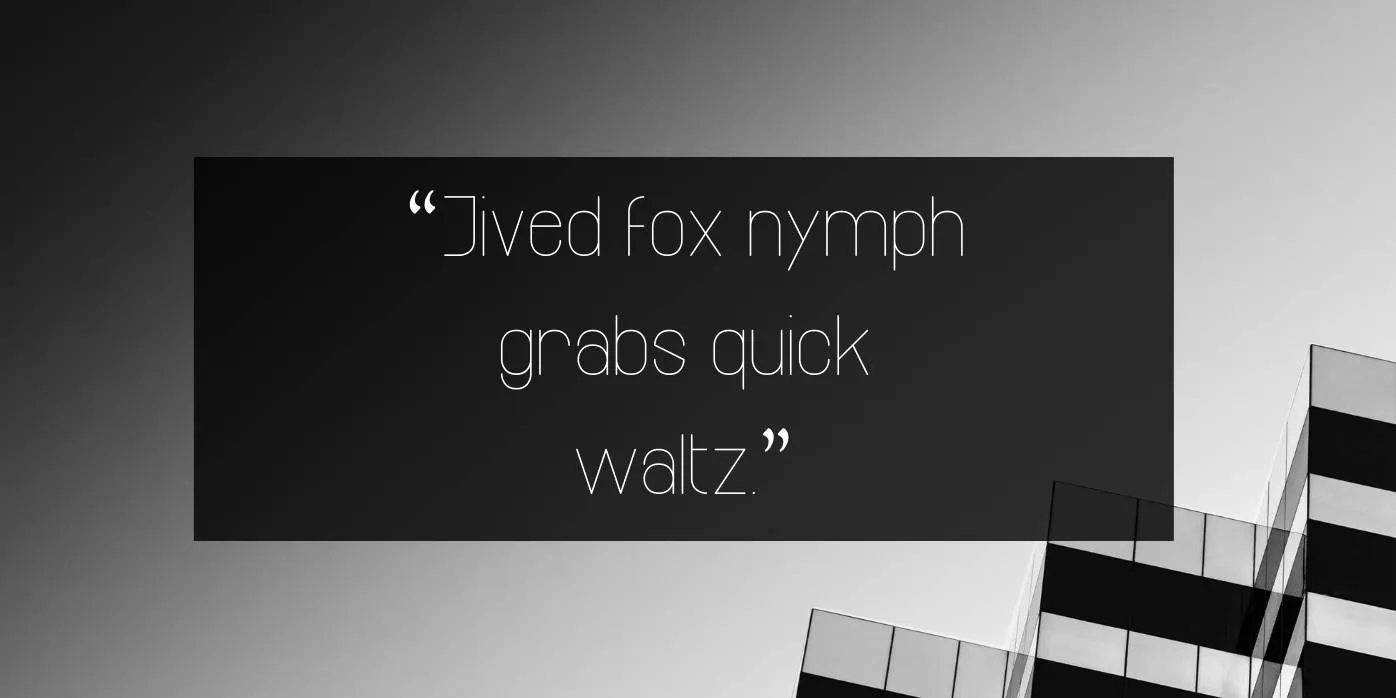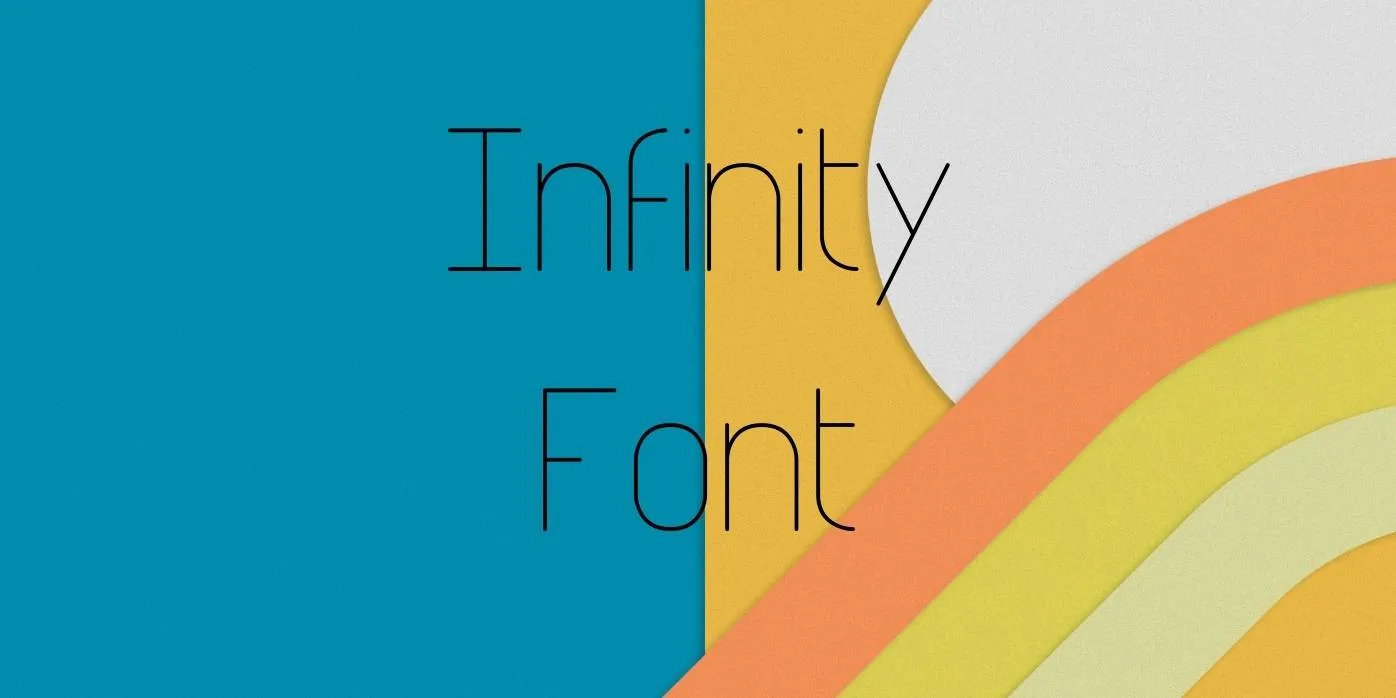
Infinity Font
Here we discuss Infinity Font which was developed by Tarin Yuangtrakul. It belongs to the Sans-Serif typeface. This typeface has been used for many purposes. This amazing typeface is a modern, sans-serif typeface that is best for different designs.
It is perfect for branding, headlines, and other display uses. This cute font includes both uppercase and lowercase letters, as well as numbers and punctuation marks. This font was created with a unique style, which gives it a natural and beautiful look. Its support for different languages makes it more popular.
You can utilize its copy and paste function for various textual designs. Its similar font Unica One Font is best for different designs with more classic features. This attractive font family includes 12 different fonts. Each font has its own unique style and look.
This cute font has styles that include Regular, Bold, Light, Black, Italic, etc. You can use these fonts for different purposes such as headlines, body text, branding, etc. Its generator tool allows you to convert your simple text to colorful graphic designs.